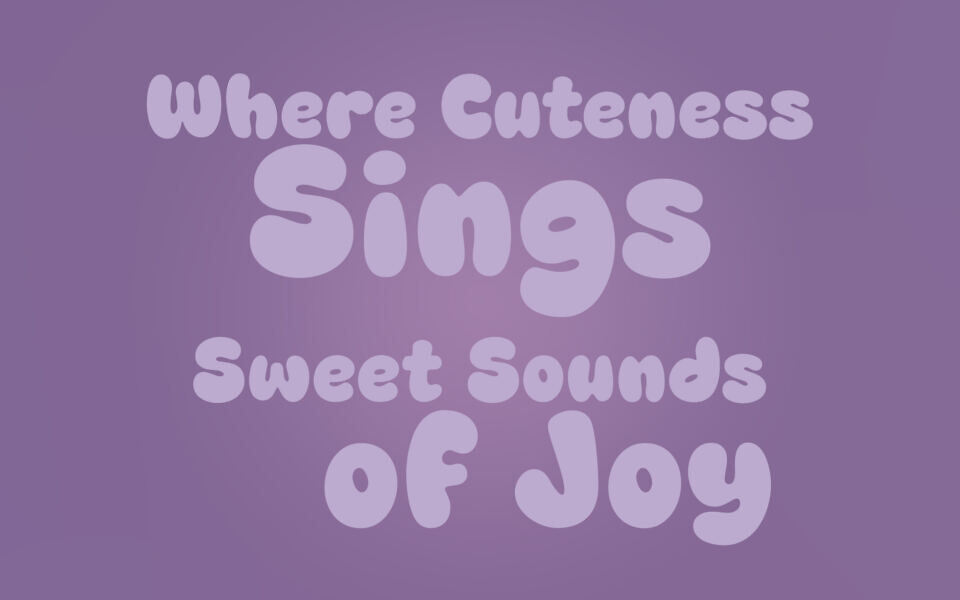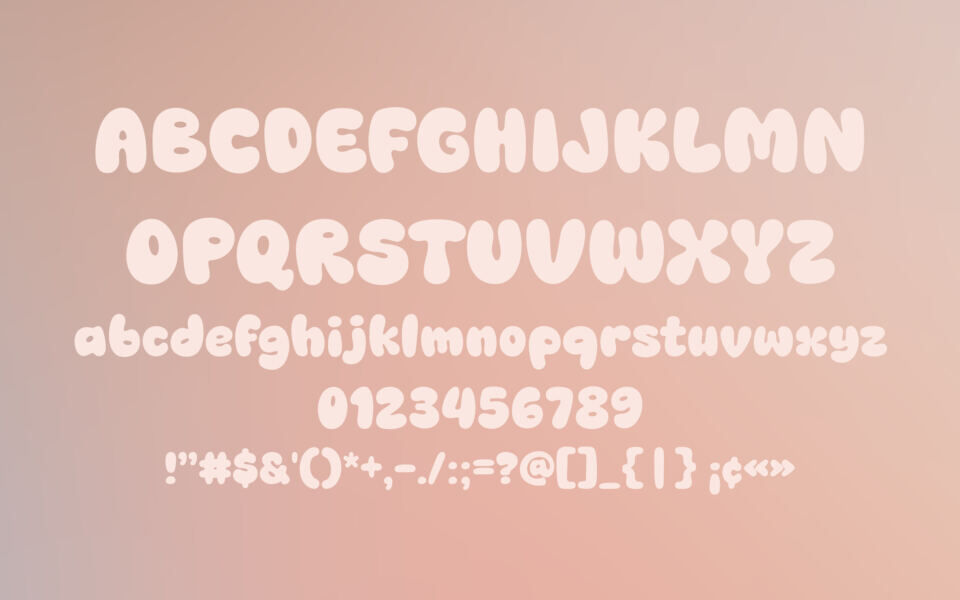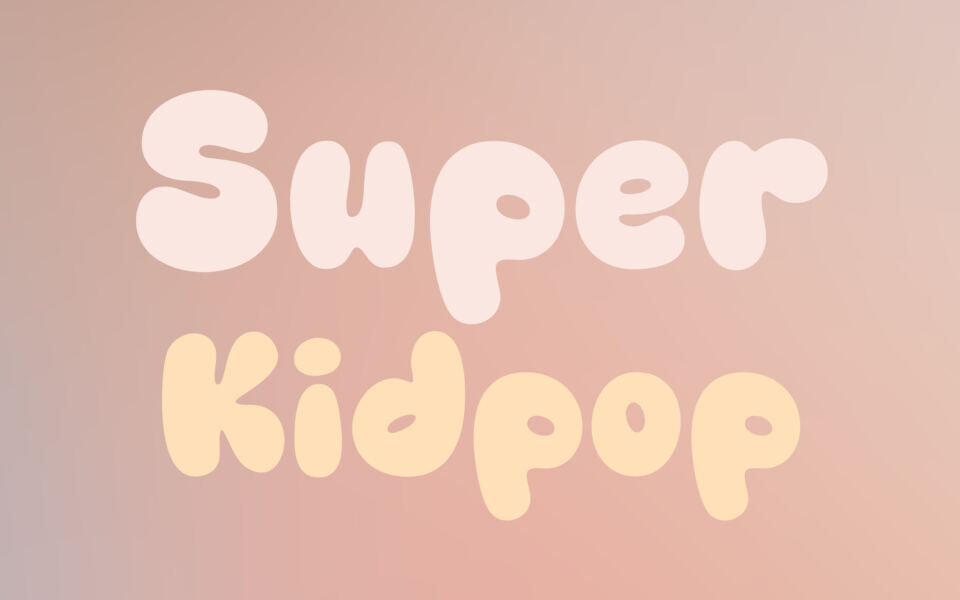
Super Kidpop Font
Super Kidpop is a fun, cartoon-style display font with bold, rounded letters and a playful personality. Its hand-drawn look brings a lively, childlike energy that’s perfect for kids’ designs, posters, logos, and creative projects.
The characters feel friendly and expressive, making any text stand out with a cheerful, eye-catching vibe. Ideal for playful branding and colorful visuals.